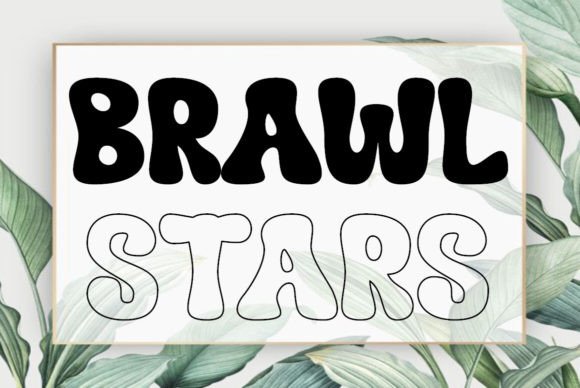
Unleash the Power of Brawl Stars Font: Elevate Your Designs with Explosive Elegance
Are you ready to inject a dose of energetic vibrancy into your designs? Look no further than the Brawl Stars Font, a dual-style display font that is sure to revolutionize the way you approach typography. Comprised of two distinctive modes – Bolt and Outline – this font is the perfect tool for designers and crafters seeking to make a bold statement.
Introducing Bolt: The Embodiment of Energetic Vibrancy
The Bolt style of Brawl Stars Font is the epitome of dynamic elegance. With its robust aura of motion and electrifying spirit, this font is guaranteed to capture the attention of your audience. The bold, chunky letters seem to pulse with energy, making it the perfect choice for audacious headlines, energetic logos, and unforgettable social media content.
Whether you’re designing a poster, a flyer, or a digital advertisement, the Bolt style is sure to make a lasting impression. Its unique characters are carefully crafted to convey a sense of movement and excitement, making it an ideal choice for designers who want to create a sense of urgency or enthusiasm around their brand or message.
Discover Outline: The Epitome of Polished Sophistication
While the Bolt style is all about high-energy excitement, the Outline style of Brawl Stars Font offers a more refined and contemporary charm. With its sleek, polished lines, this font is perfect for designers who want to create a sense of sophistication and elegance in their work.
The Outline style is ideal for designs that require a bit of subtlety and nuance, such as business cards, brochures, or website headers. Its clean, modern aesthetic makes it easy to read and understand, while its unique character set adds a touch of personality to any design.
The Versatility of Brawl Stars Font
One of the standout features of Brawl Stars Font is its incredible versatility. With two distinct styles to choose from, designers can adapt this font to suit a wide range of artistic endeavors. Whether you’re working on a bold and daring project or a more refined and elegant one, Brawl Stars Font has got you covered.
From social media graphics and posters to logos and branding materials, this font can be used in a variety of contexts to add a touch of personality and flair. Its flexibility makes it an excellent choice for designers who want to create a cohesive visual identity across multiple platforms.
Why Choose Brawl Stars Font?
So why should you choose Brawl Stars Font for your next design project? Here are just a few compelling reasons:
- Unique character set: With its bold and chunky letters, Brawl Stars Font offers a unique character set that is sure to make your designs stand out.
- Versatility: With two distinct styles to choose from, this font can be adapted to suit a wide range of artistic endeavors.
- Ease of use: Brawl Stars Font is easy to read and understand, making it perfect for designs that require a clear and concise message.
- Flexibility: This font can be used in a variety of contexts, from social media graphics and posters to logos and branding materials.
In conclusion, Brawl Stars Font is a game-changer for designers and crafters seeking to add a touch of explosive elegance to their work. With its dual-style design, unique character set, and versatility, this font is sure to revolutionize the way you approach typography.
Whether you’re working on a bold and daring project or a more refined and elegant one, Brawl Stars Font has got you covered. So why wait? Immerse yourself in the alluring universe of Brawl Stars Font today and discover a world of creative possibilities!